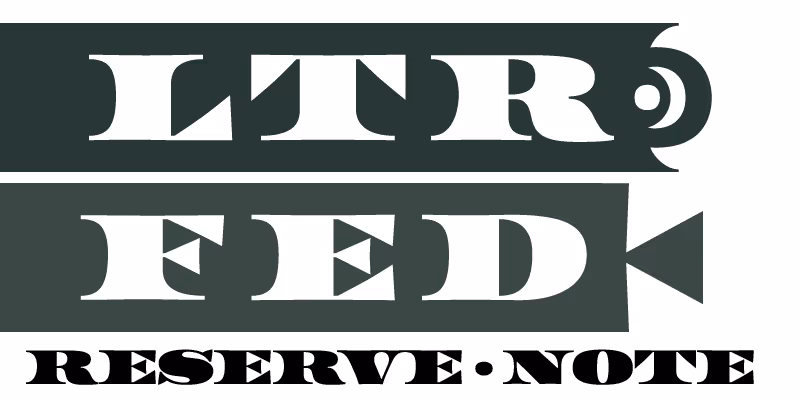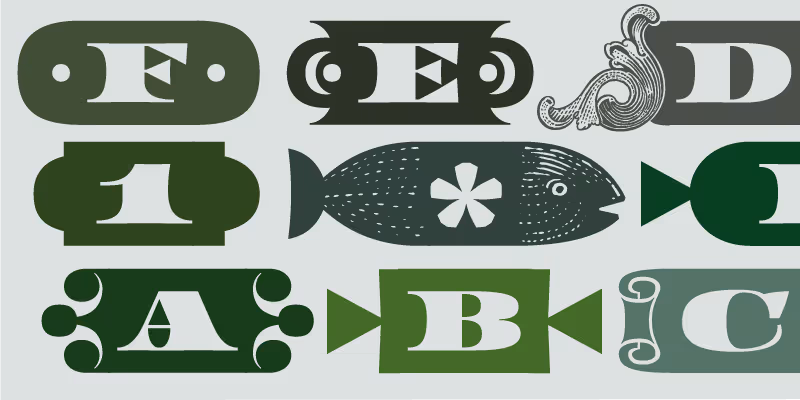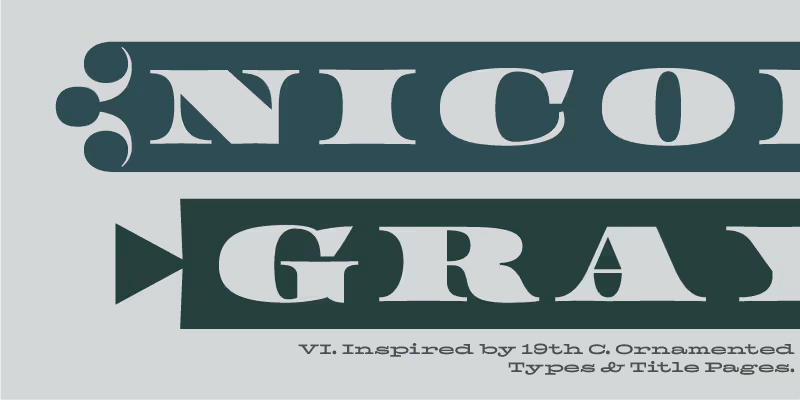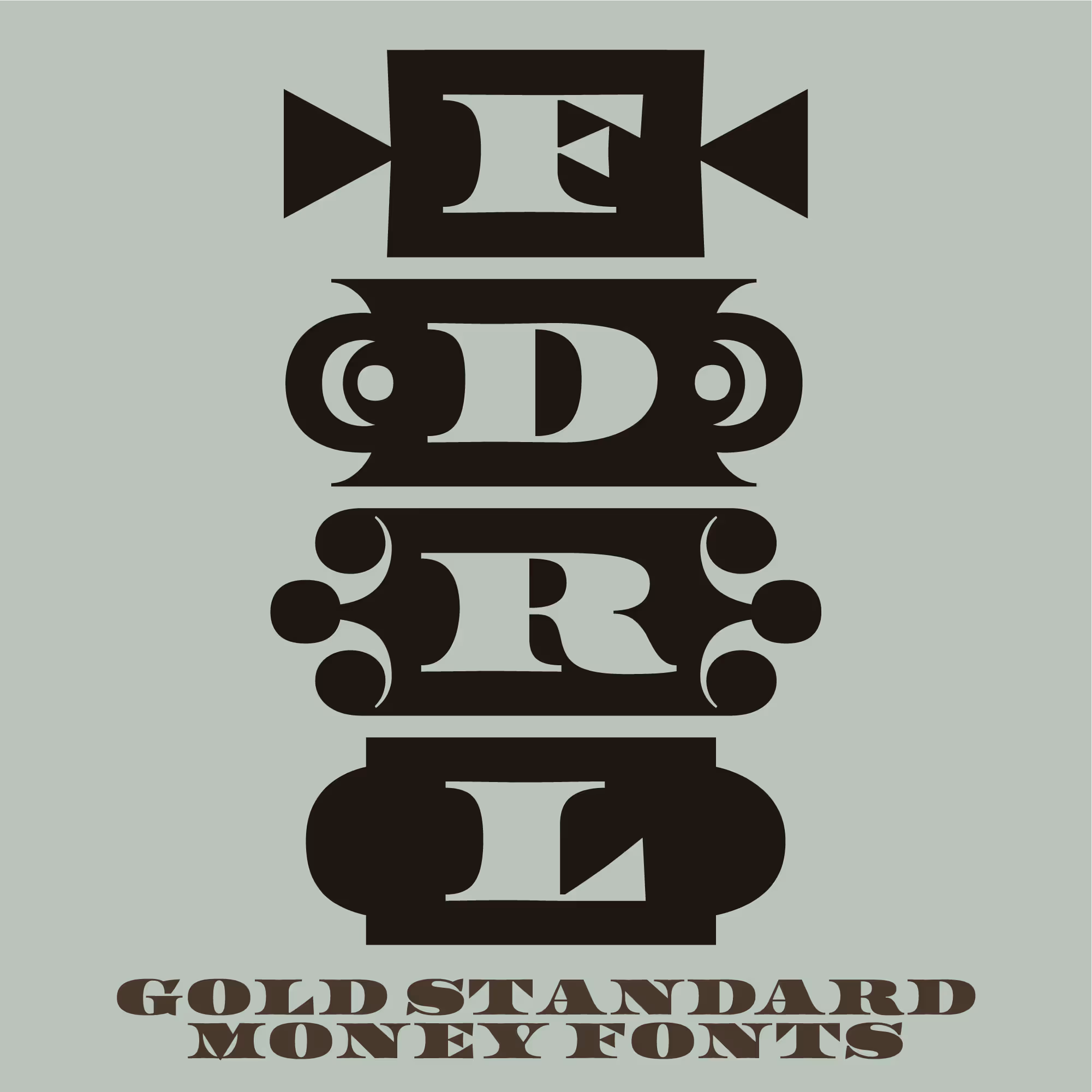
A Cameo variation of LTR Federal. Spaced a bit wider and it has no kerning. This edition has a collection of ten different endpieces, that should give you a taster of Nicolete Gray’s Ornamented Types. Check the OT Features panel in the tester below. I think the Fish pieces might be my favorite. Single style with a lot of OpenType features.
Lunate and Toffee styles.
From top to bottom:
Oval, Lunate, Engraved
Crescent, Fish, Candy,
Crown, Toffee, Scroll.
Nicolete Gray would absolutely agree.